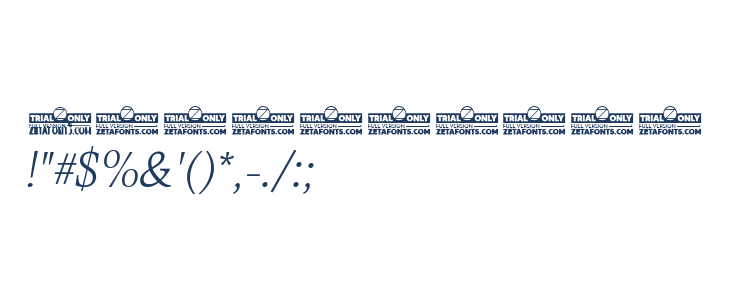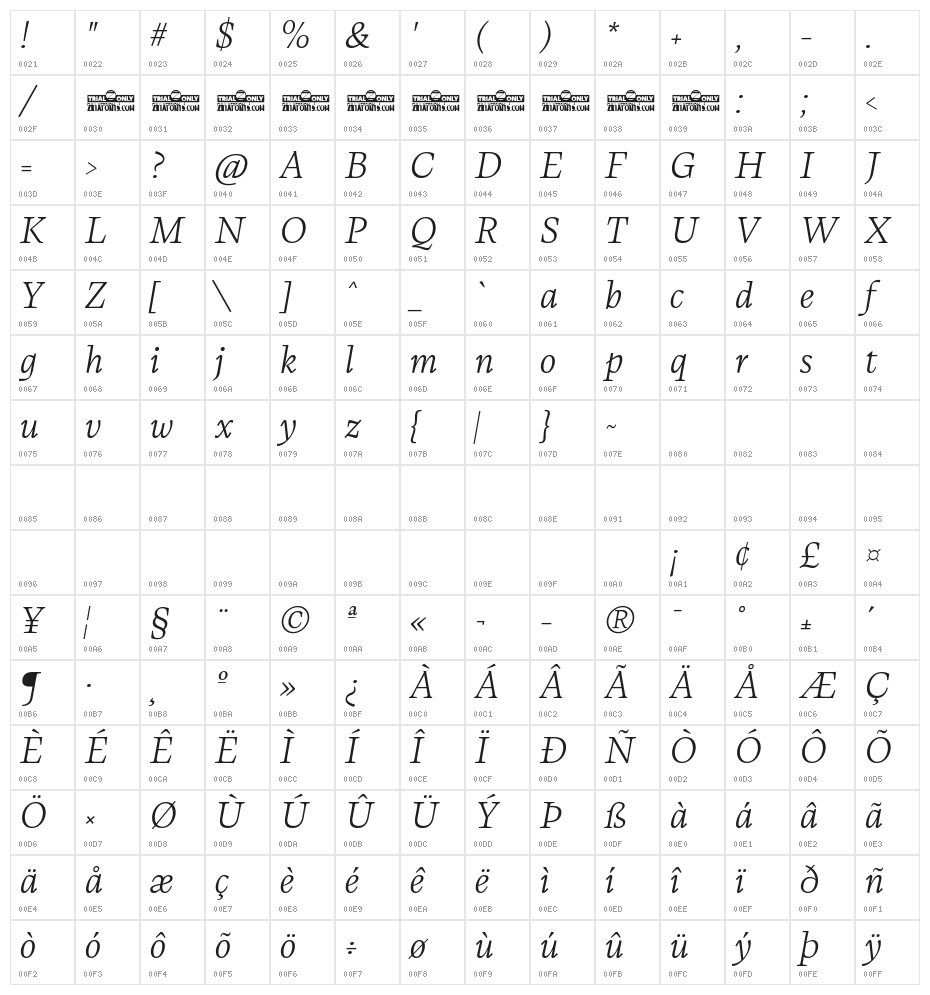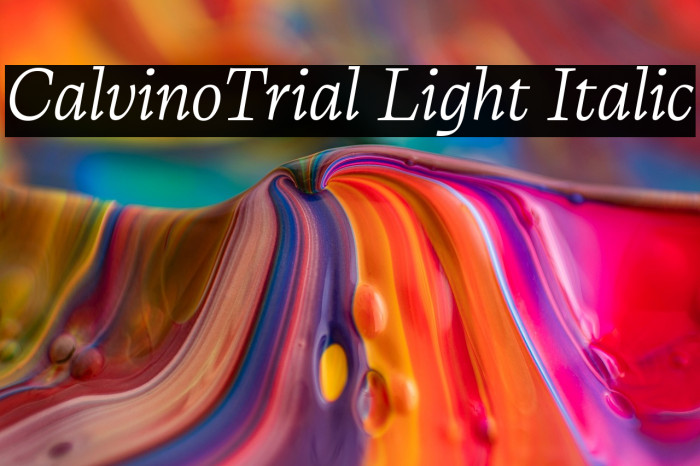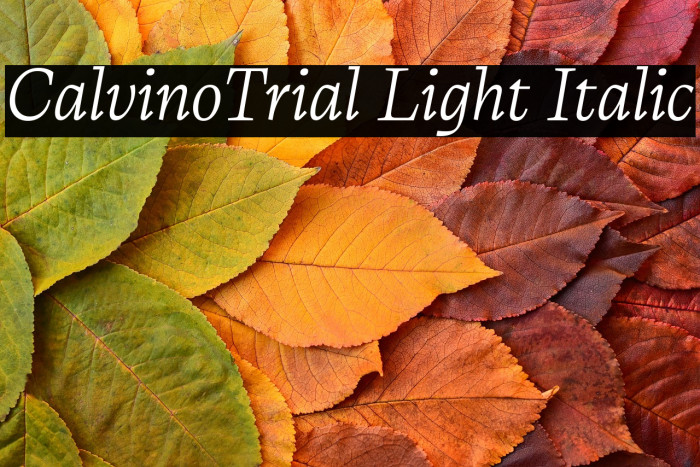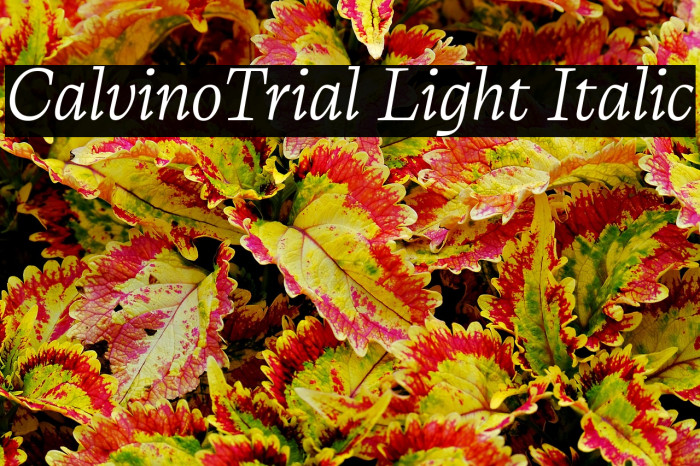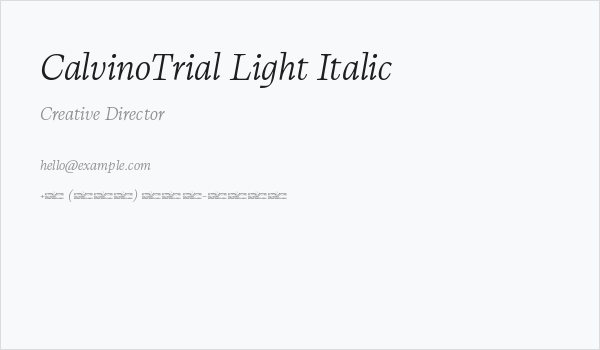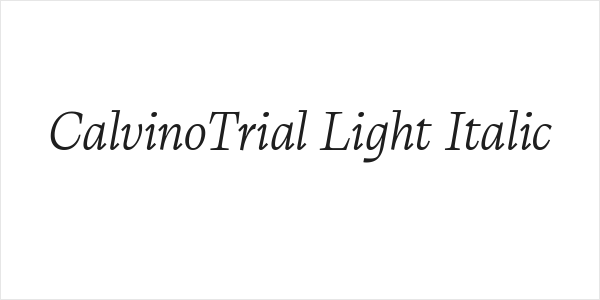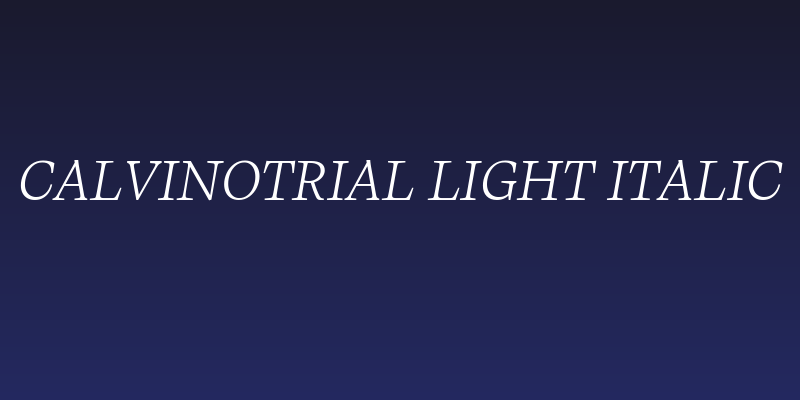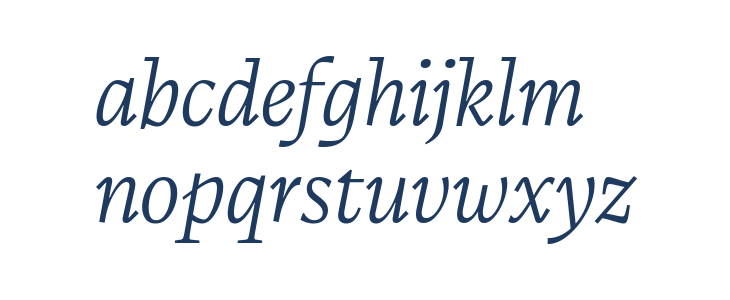
CalvinoTrial Light Italic Font
CalvinoTrial Light Italic Description
This font features a refined and elegant design with a light weight and italic style. The characters exhibit a smooth, flowing appearance with gentle curves and a slight slant, enhancing its sophisticated look. The uppercase letters are tall and slender, while the lowercase letters maintain a consistent, harmonious flow. The numerals and special characters are designed to complement the overall aesthetic, maintaining clarity and readability. The font's light weight and italic nature make it ideal for projects that require a touch of elegance and subtlety.
| Use Case | Headlines, Invitations, Branding |
| Proposed Projects | Ideal for wedding invitations, elegant branding, fashion magazines, and luxury product packaging. |